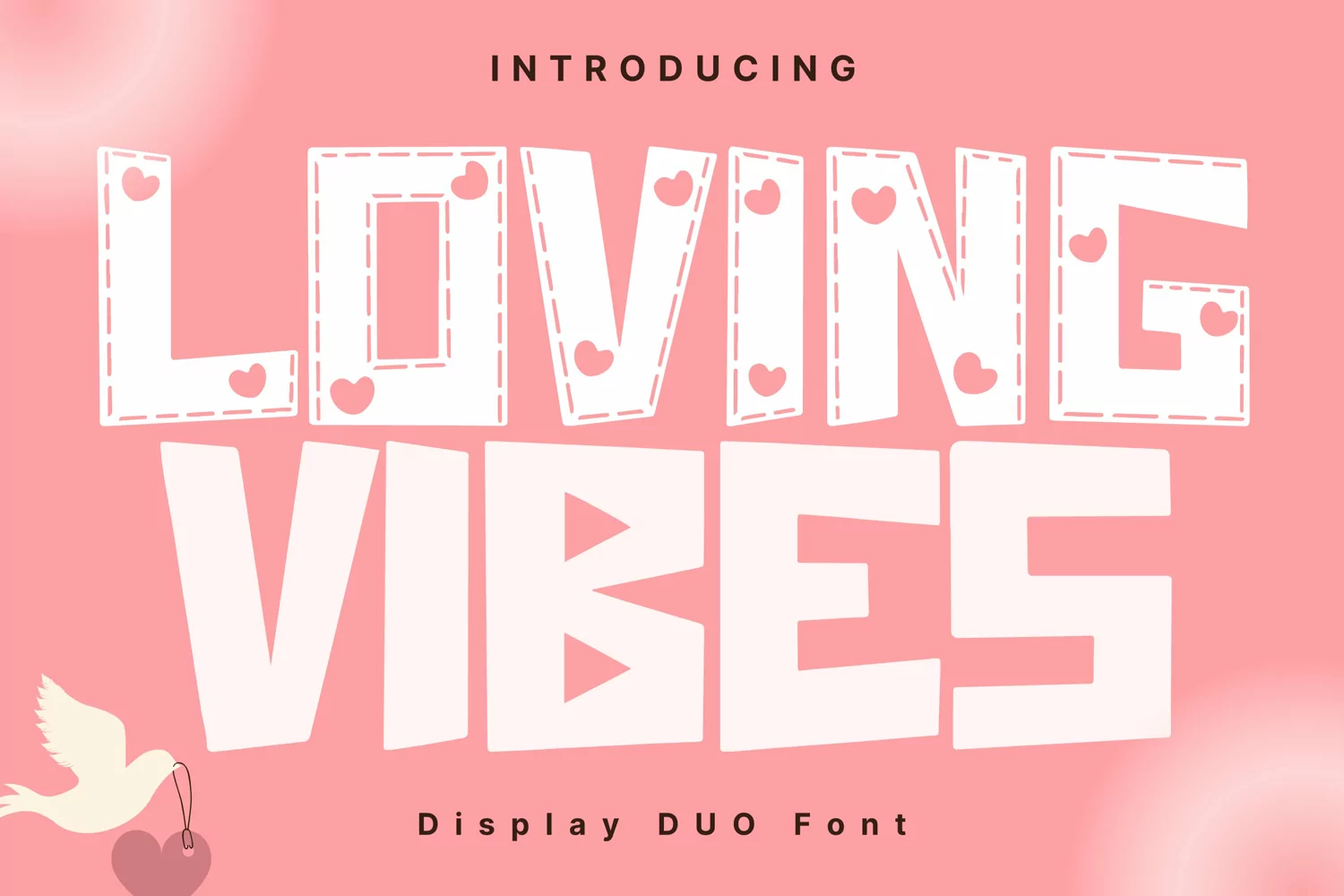
Loving Vibes Style
LovingVibes
LovingVibesHeart
Loving Vibes Style is a whimsical and clean handwritten font. It can easily be matched to an incredibly large set of projects, so add it to your creative ideas and notice how it makes them stand out!